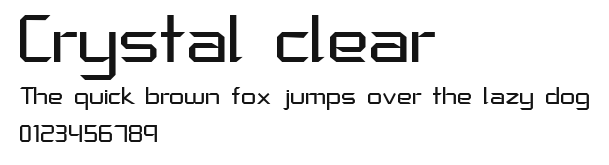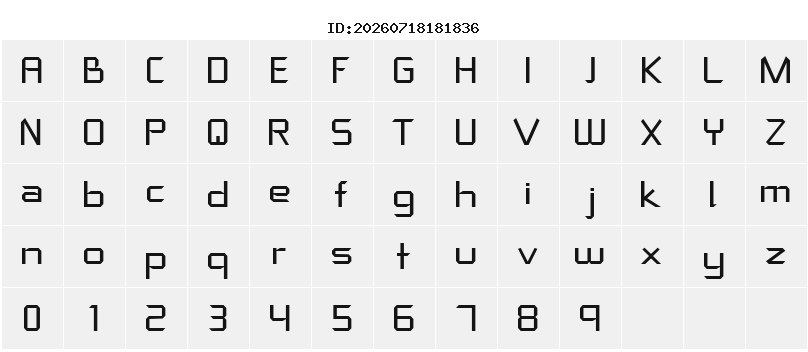
• Font Name: Crystal clear
• Full Font Name: Crystal clear
About Crystal clear.ttf
Crystal clear.ttf is a modern, elegant sans-serif font designed for ultimate readability and visual harmony. Perfect for branding, headlines, web design, and print materials.